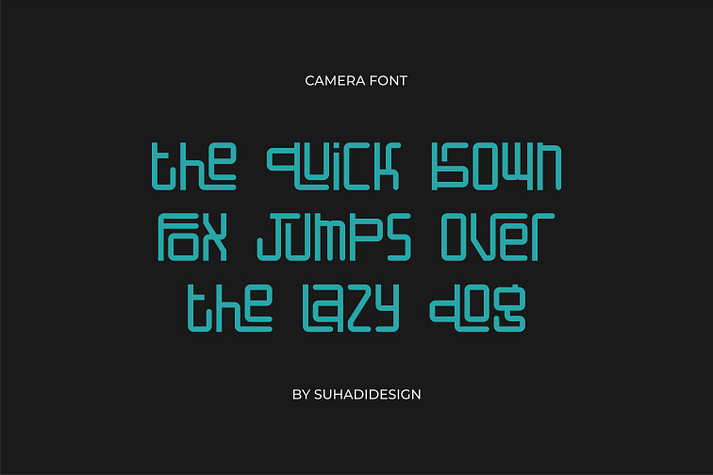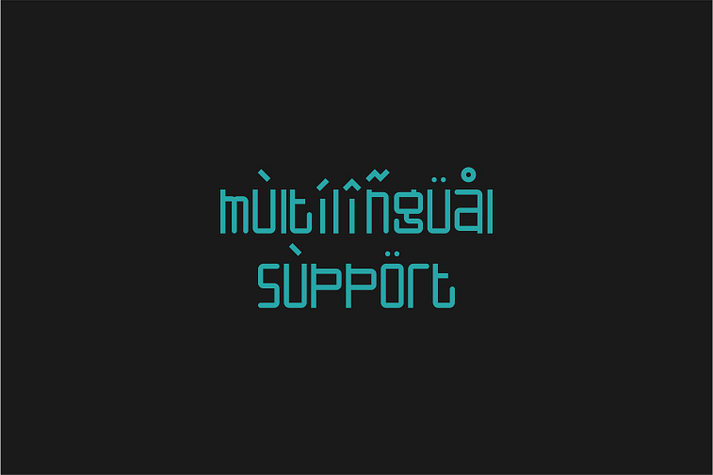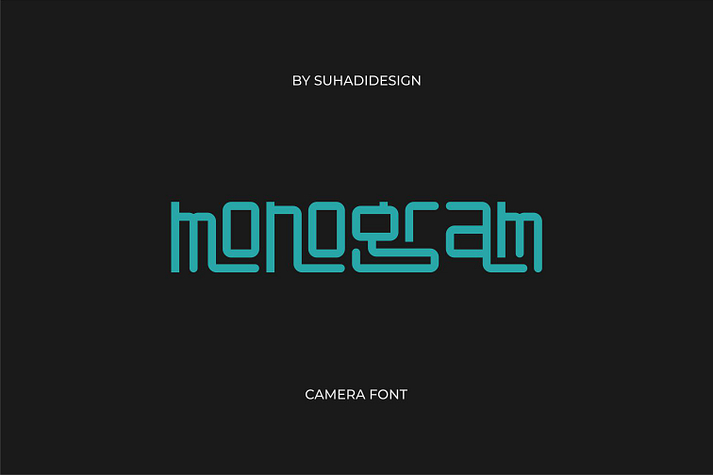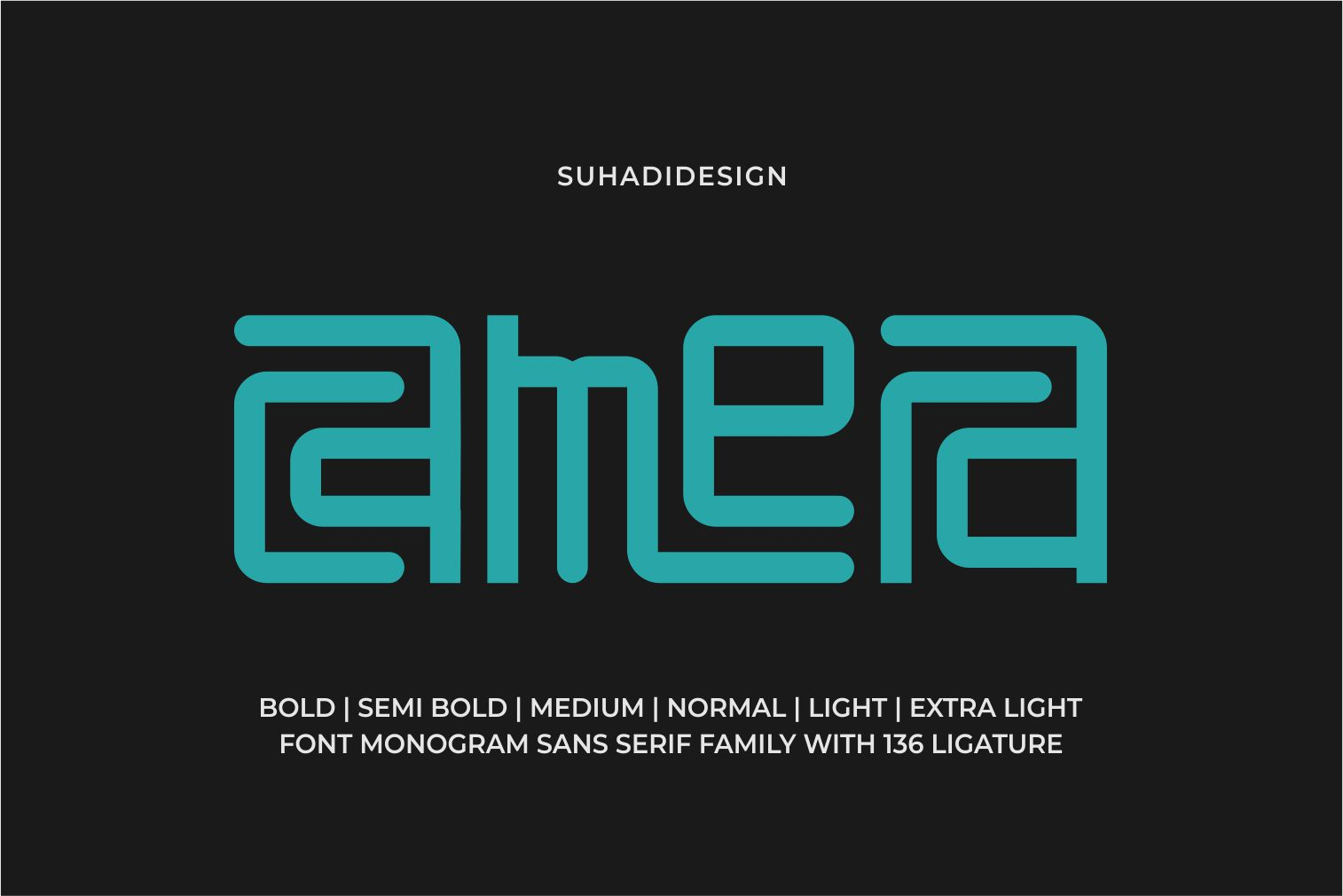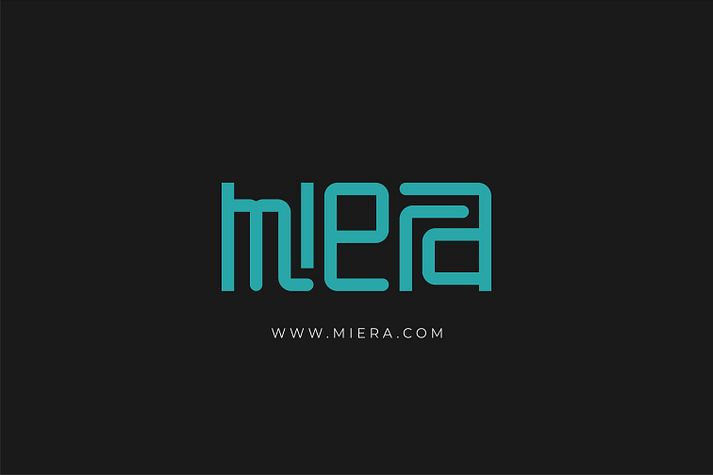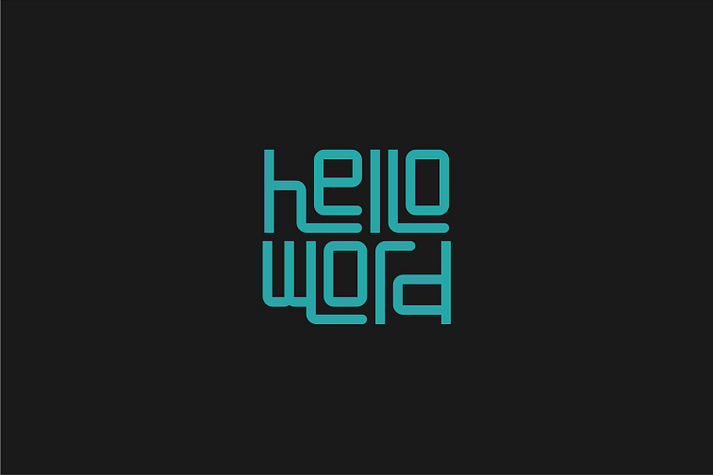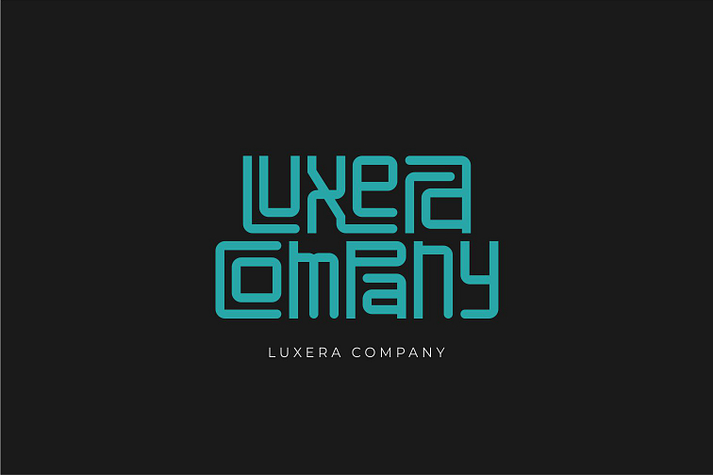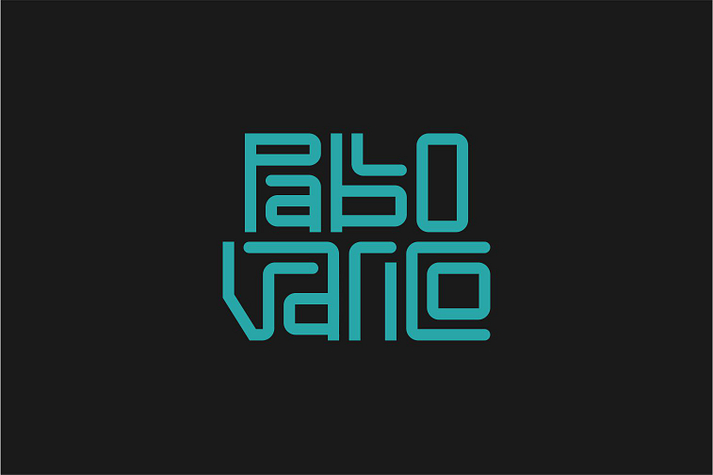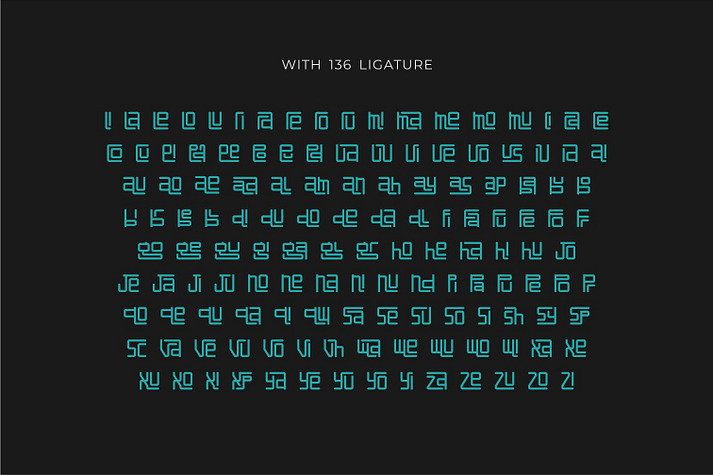
CAMERA
Camera is a sans serif font family. This typeface has six styles and was published by suhadidesign.
Camera - Monogram Ligature Font
Hi Ladies and Gentlemen! According to market demand, I created a modern, elegant, and cool minimalist sans serif font, so I decided to create this sans serif font. Camera font is a modern sans serif font with 136 ligatures, presented in a modern monogram style with the hope of becoming a market favorite. We keep this font looking elegant, classy, ​​modern, stylish, up-to-date, and easy to use. Camera font is the right choice for logos, labels, fashion, posters, banners, bags, brands, fashion, brand names, brands, quotes, and other projects. Camera font is here to take your design to the next level. Therilo font style will make you happy to design and take advantage of the cool design results for this font. Stay tuned for more font creation updates :)
Font Features:
• All lowercase
• 136 Ligatures
• 6 Families
• Multi-language support
• Numbers and punctuation